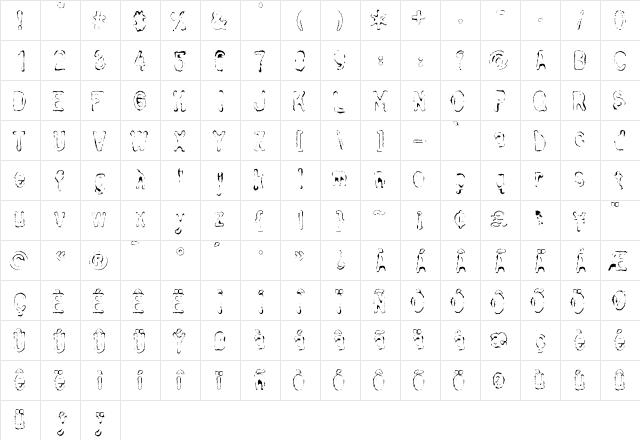
Bull UnderInked
Design Context for Bull Typeface
Bull is a composed and adaptable typeface that performs quietly and consistently across a wide range of design contexts.